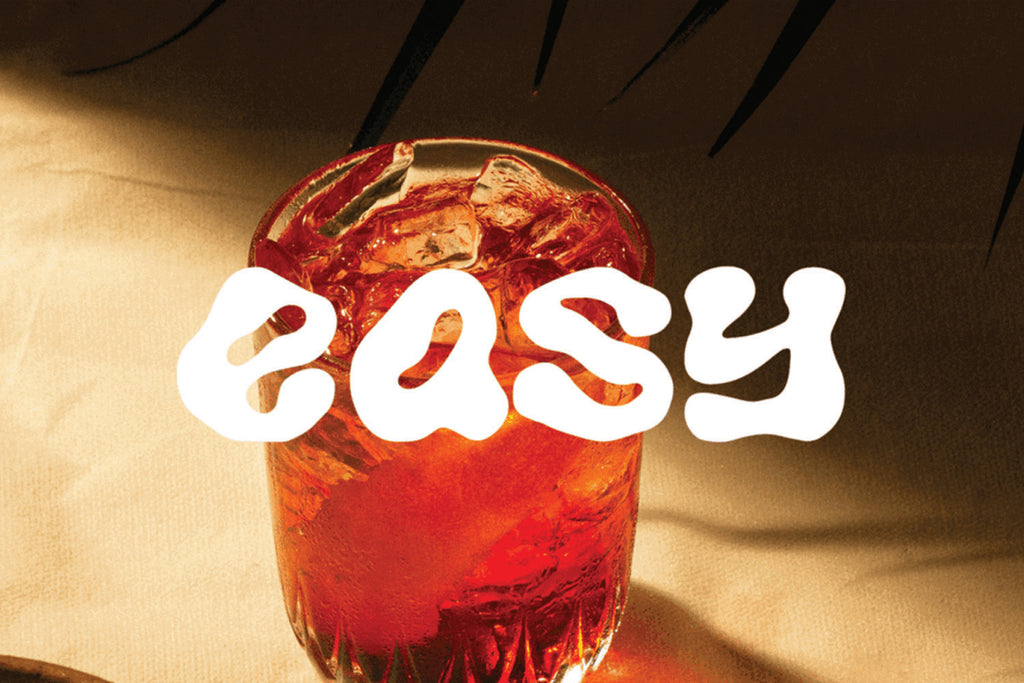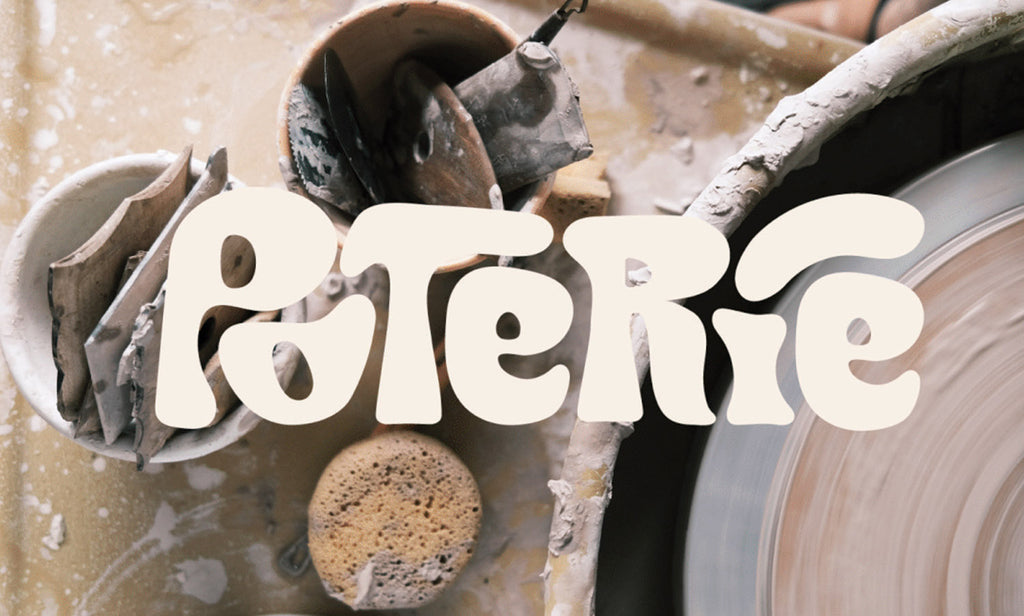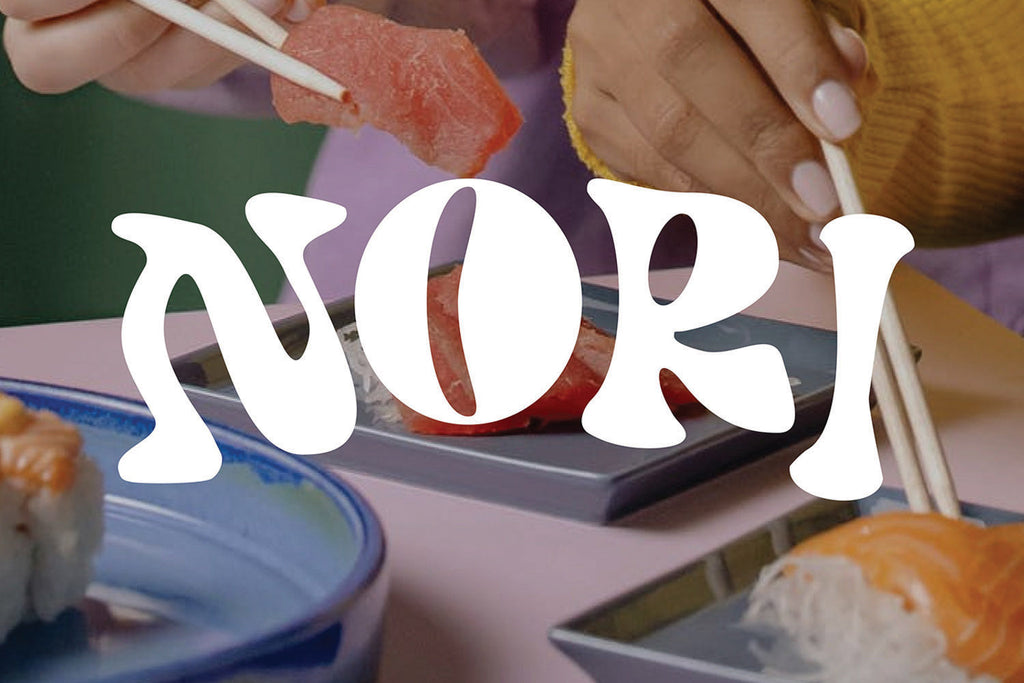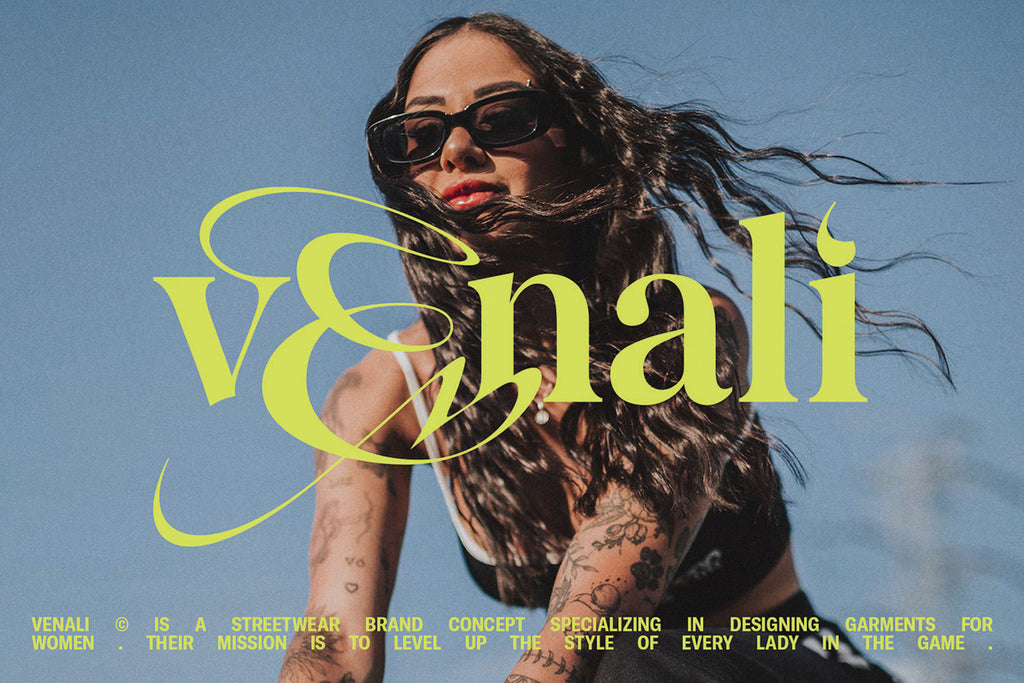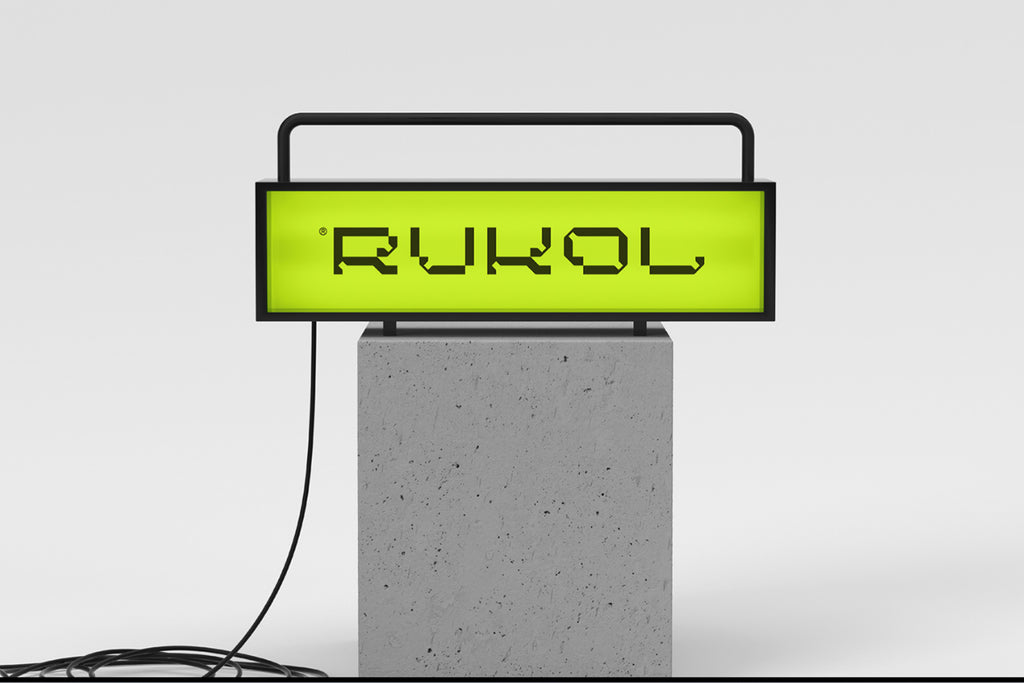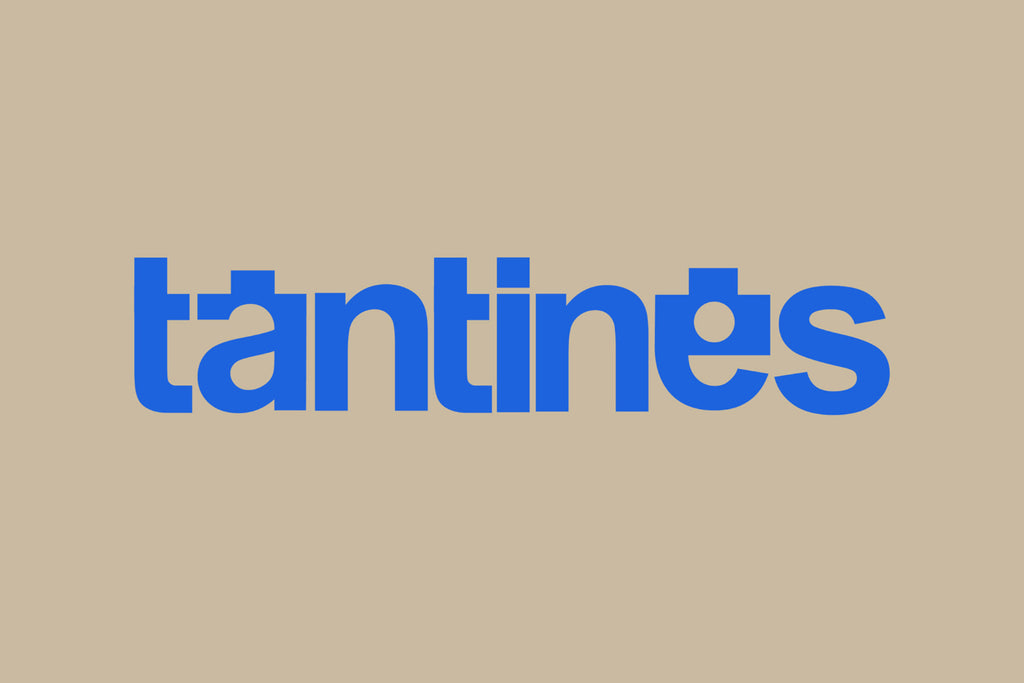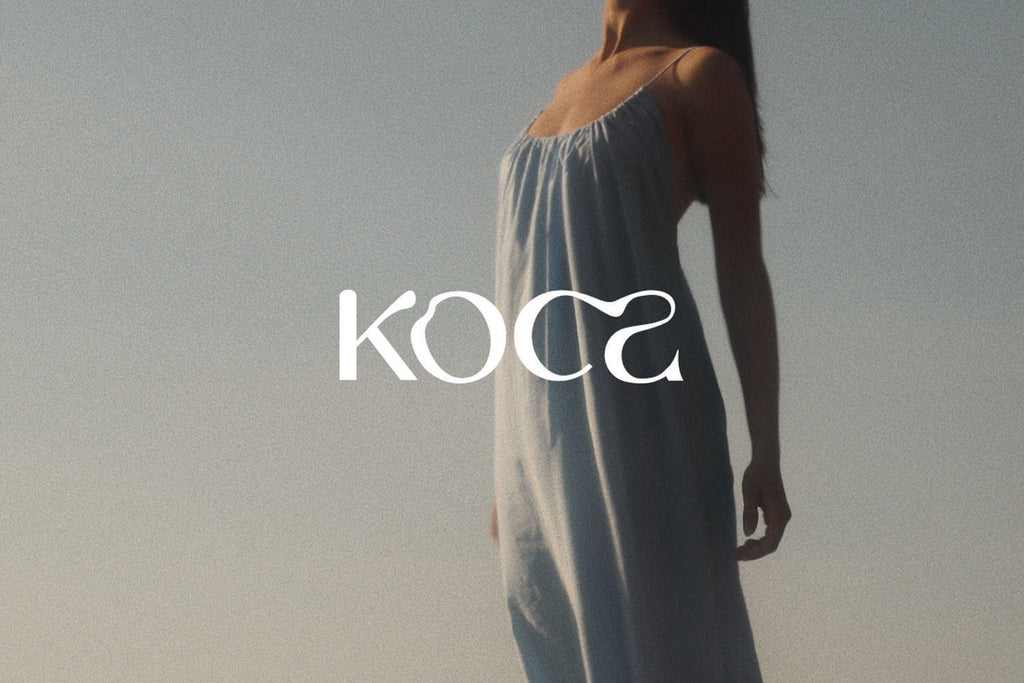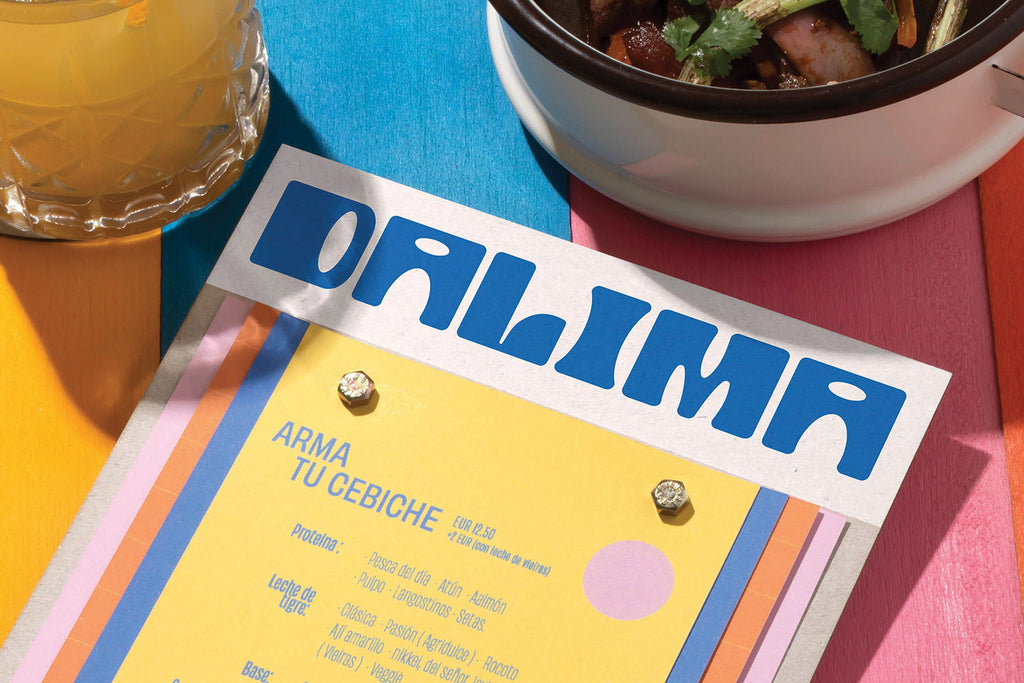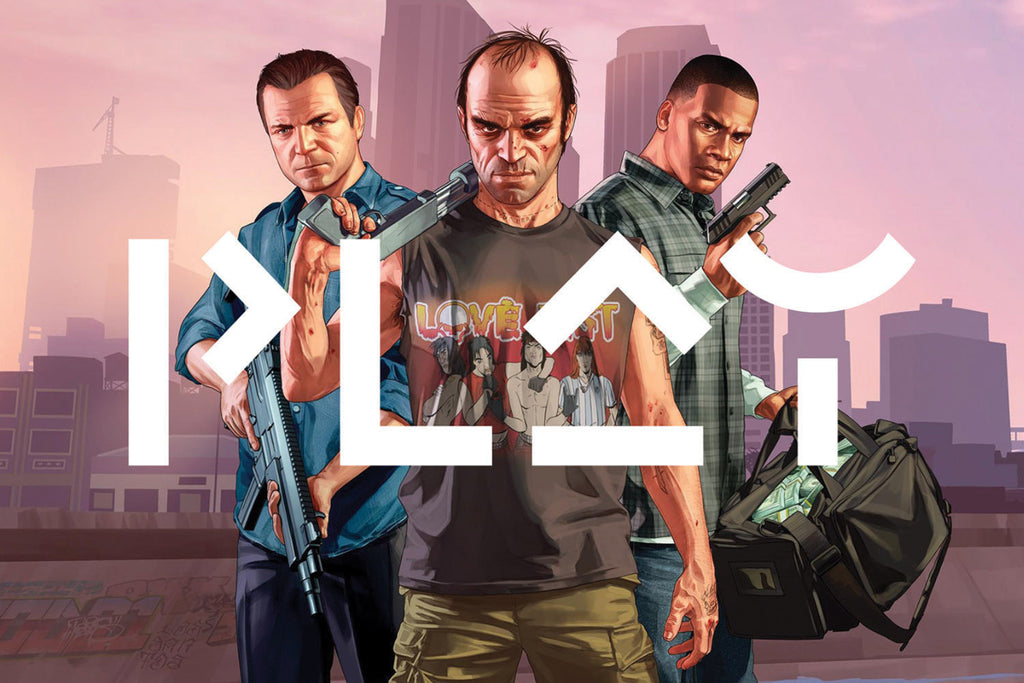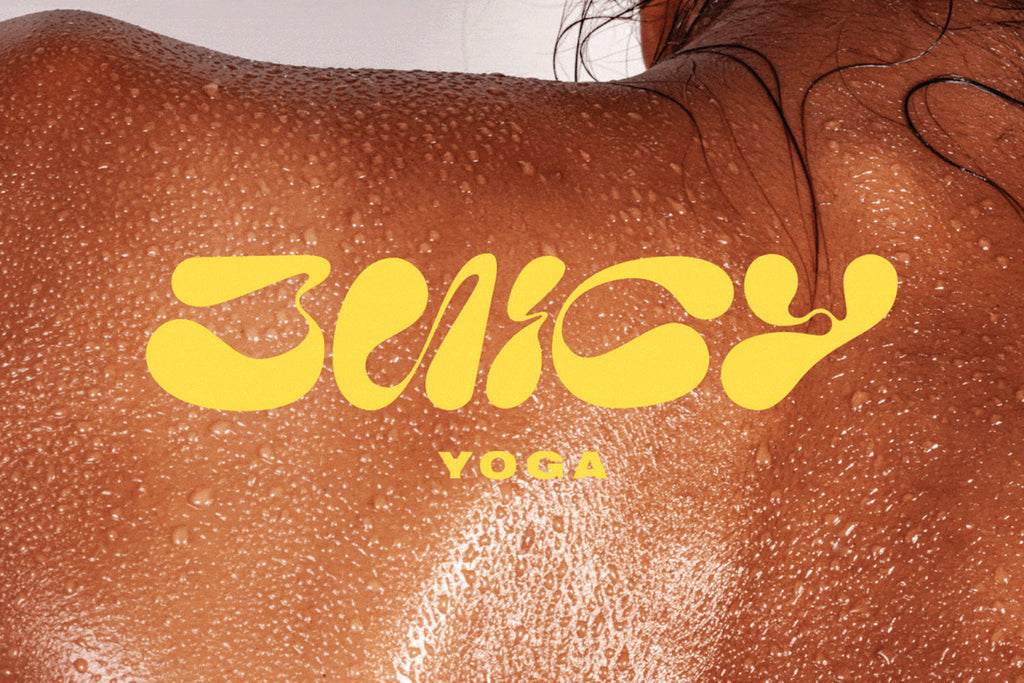
Discovering The Benefits of Custom Fonts For Logo Designs
Typography shapes how people perceive a brand long before they read a tagline or learn about a company's products. The style of lettering used in a logo can communicate personality, values, and positioning within seconds. Among the many typography styles available, cursive fonts remain a popular choice for businesses seeking a more expressive and distinctive identity. Cursive lettering is characterized by flowing strokes, connected characters, and a sense of movement that differs from traditional serif or sans-serif fonts. When used thoughtfully, script-inspired typography can add elegance, warmth, creativity, or sophistication to a logo. This makes cursive fonts particularly valuable within a custom fonts logo design strategy where uniqueness and brand personality matter. Rather than focusing on logo typography as a whole, this article explores the specific advantages that cursive fonts bring to logo design. From strengthening brand character to improving memorability and perceived value, understanding these benefits can help businesses decide whether a cursive logo is the right fit for their visual identity.
Why Cursive Fonts Create A Stronger Brand Personality
Expressing Emotion Through Letterforms
One of the strongest benefits of cursive fonts is their ability to communicate emotion. Straight, geometric fonts often emphasize structure and efficiency, while cursive letterforms introduce movement and personality. The flowing nature of script typography can make a brand feel welcoming, creative, elegant, or even playful depending on the style selected. Every curve and connection contributes to the overall impression. Soft, rounded scripts often appear friendly and approachable. More refined and delicate scripts may communicate sophistication or luxury. This emotional flexibility gives designers more opportunities to align typography with brand values. Because logos frequently serve as the first visual interaction with a brand, emotional impact matters. A carefully crafted cursive logo can create an immediate sense of familiarity that helps audiences form a positive connection.
Making Brands Feel More Human
Many consumers appreciate brands that feel authentic and personal. Cursive fonts often resemble handwriting, which naturally introduces a human element into the design. Even when digitally created, script lettering can suggest craftsmanship, creativity, and individual attention. This quality is particularly valuable in a custom fonts logo design because custom script lettering often feels less manufactured than standard typefaces. Instead of appearing like a font selected from a generic library, the logo can feel intentionally crafted for the business itself. For brands built around relationships, personal service, or creative expertise, this sense of humanity can become a meaningful advantage.
How Cursive Fonts Improve Brand Memorability
Creating Distinct Visual Signatures
Memorable logos often contain visual characteristics that audiences can quickly recognize. Cursive fonts naturally support this goal because their shapes tend to be more unique than standard text styles. The connections between letters create distinctive silhouettes that help logos stand apart from competitors. When a script logo is customized, its uniqueness increases even further. Small adjustments to letter spacing, flourishes, stroke weight, and character shapes can transform a simple wordmark into a recognizable brand asset. This signature-like quality gives many cursive logos a lasting visual presence. Even when people do not immediately remember a company name, they may remember the appearance of the lettering itself.
Standing Apart From Generic Typography
Many industries are filled with logos that rely on clean but predictable typography. While simplicity has its place, excessive uniformity can make brands blend together. Cursive logos often break this pattern by introducing character and individuality. Their organic appearance attracts attention without requiring complicated graphic elements. The typography becomes a key part of the visual identity rather than merely presenting the company name. For businesses investing in custom fonts logo design, this differentiation can help establish a stronger visual position in competitive markets where many brands look remarkably similar.
The Professional And Premium Appeal Of Cursive Logos
Adding A Sense Of Craftsmanship
People frequently associate handcrafted details with quality. Cursive typography often benefits from this perception because its flowing forms resemble calligraphy, hand lettering, or traditional artistic techniques. When audiences see a well-designed script logo, they may subconsciously associate it with care, precision, and attention to detail. This can strengthen the perceived quality of products or services even before customers make a purchase. Businesses that emphasize expertise, artistry, or personalized work often benefit from this visual association. The typography helps reinforce the idea that the brand values refinement and thoughtful execution.
Supporting Luxury And Boutique Positioning
Luxury brands frequently rely on typography that feels elegant and exclusive. Certain cursive styles naturally support this positioning through graceful lines, balanced proportions, and sophisticated visual rhythm. Boutique businesses also benefit from script-inspired logos because they often want to highlight individuality rather than mass-market appeal. A custom fonts logo design built around refined cursive lettering can suggest exclusivity without appearing overly formal. Fashion brands, specialty retailers, premium beauty products, artisan goods, and wedding-related businesses commonly use script typography for this reason. The visual language aligns well with customer expectations in these markets.
Created by Vrints-Kolsteren | https://www.behance.net/gallery/135605989/Tantines
Where Cursive Fonts Work Best In Logo Design
Personal Brands And Creative Businesses
Personal brands often revolve around trust, expertise, and individuality. Cursive logos can reinforce these qualities by making the brand feel more personal and recognizable. Photographers, designers, artists, consultants, and content creators frequently use script-inspired typography because it reflects creativity while maintaining professionalism. In many cases, the logo feels closer to a signature than a corporate mark, which supports stronger personal branding. For creative professionals seeking a custom fonts logo design, cursive lettering can help communicate originality without requiring complex graphics.
Beauty, Fashion, And Specialty Products
Visual presentation plays a major role in industries such as beauty and fashion. Customers often expect branding to reflect style, elegance, and attention to aesthetics. Cursive logos fit naturally within these environments because they contribute a refined and expressive appearance. Whether featured on product packaging, labels, websites, or social media profiles, script typography can enhance the overall perception of the brand. Specialty products such as handmade goods, artisan foods, luxury candles, and custom accessories can also benefit from the warmth and personality that cursive lettering provides.